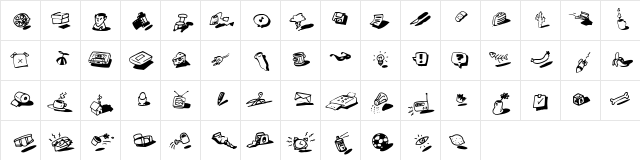
yodle Regular Free Font
yodle Regular
Design Context for yodle
yodle is a composed and adaptable typeface that performs quietly and consistently across a wide range of design contexts.